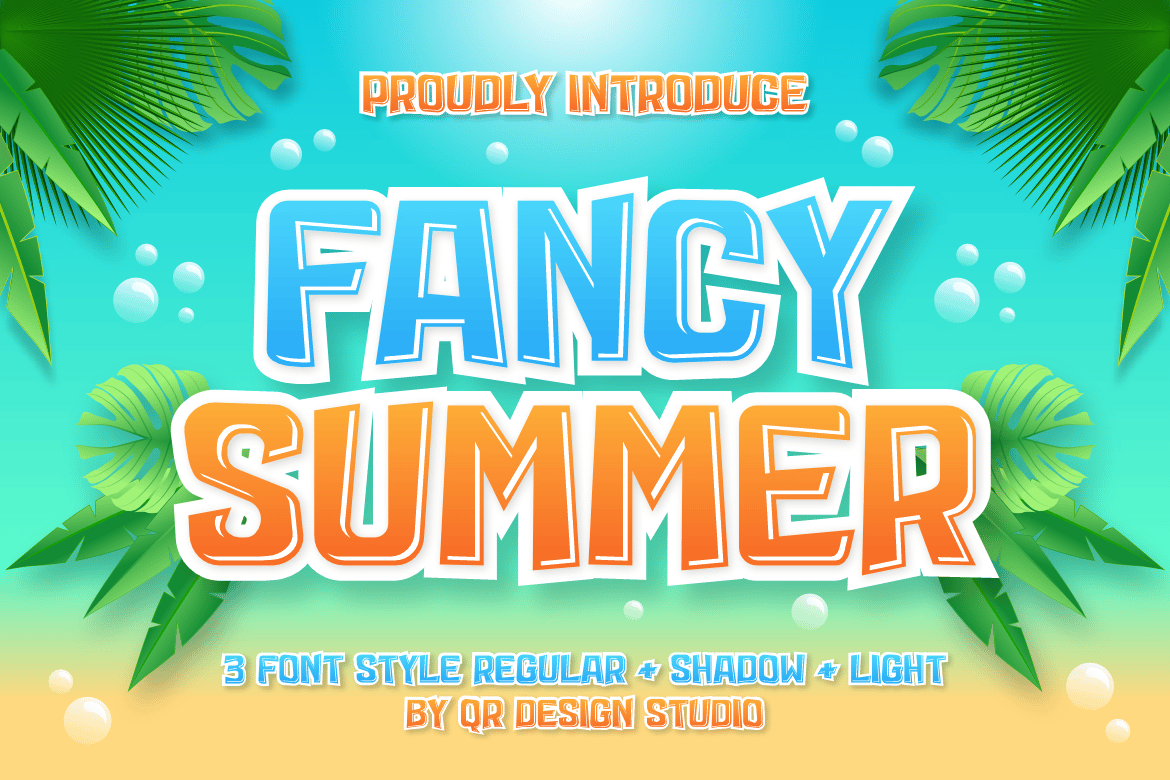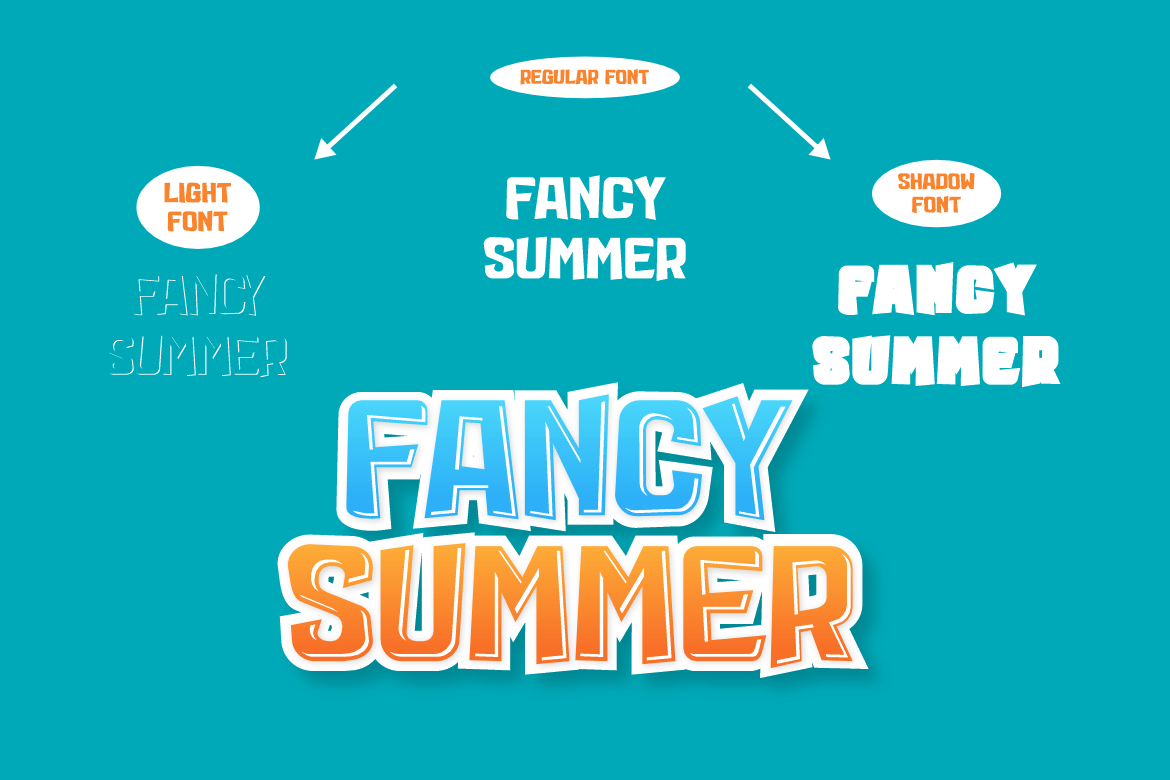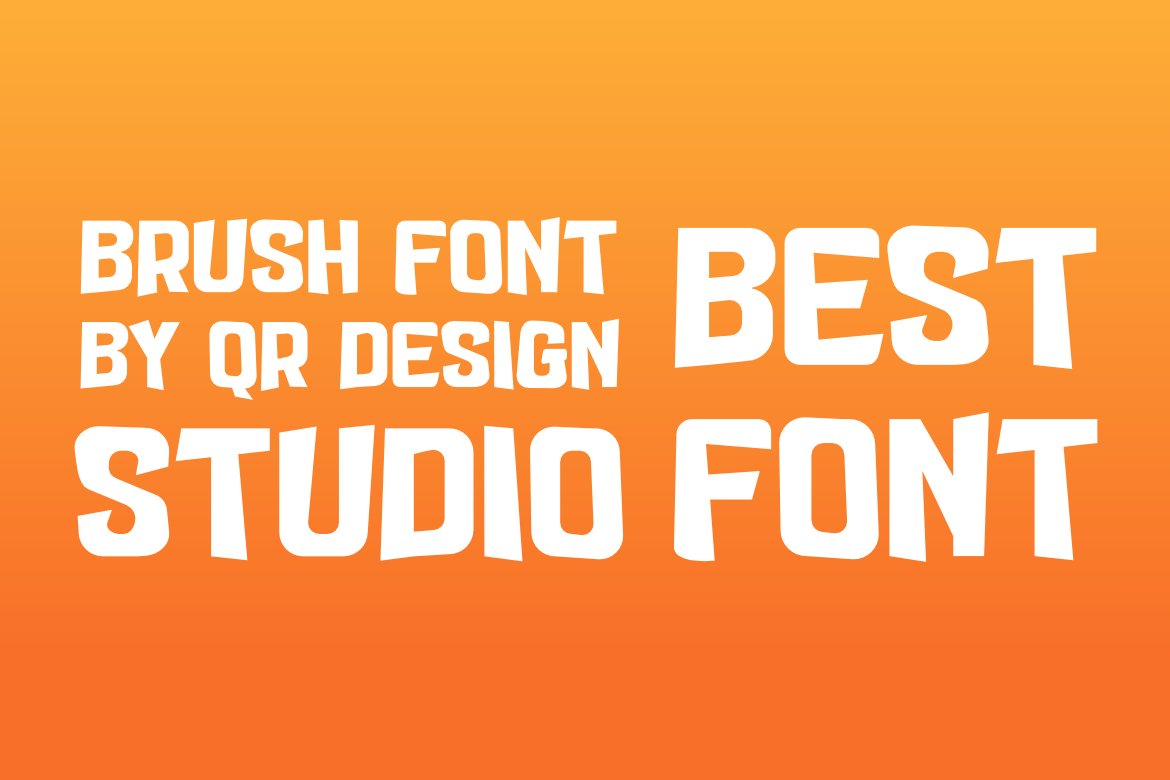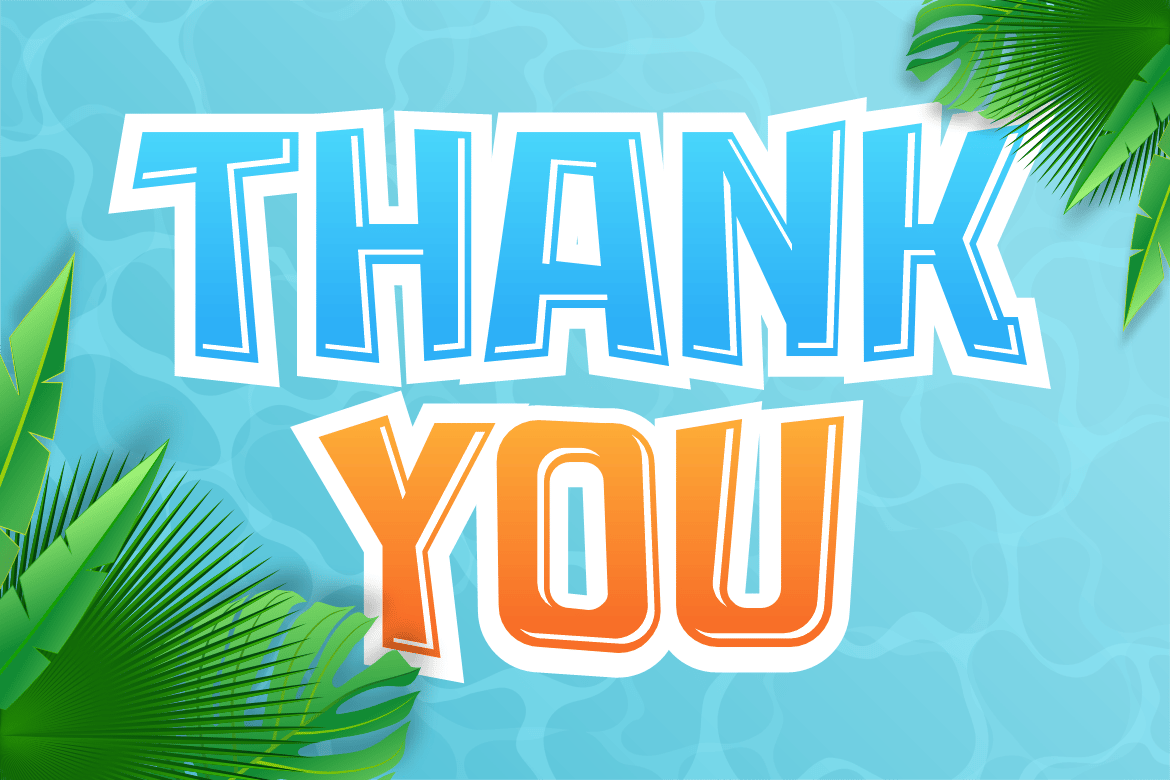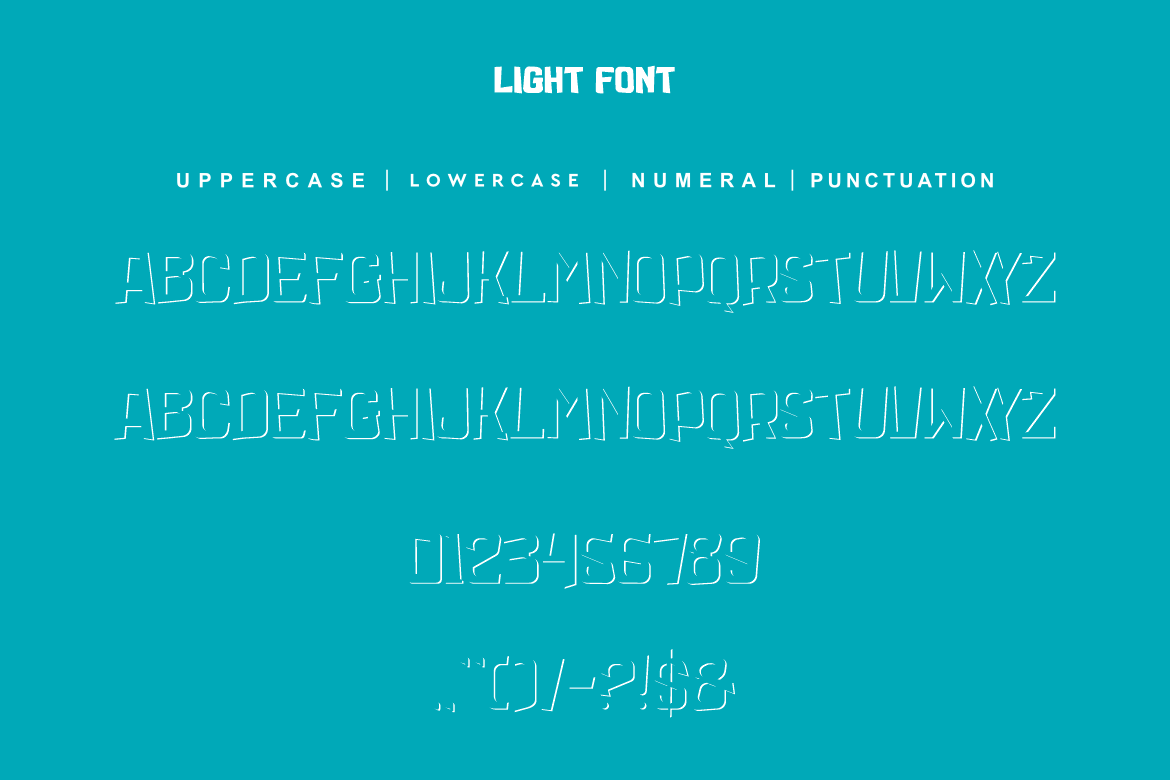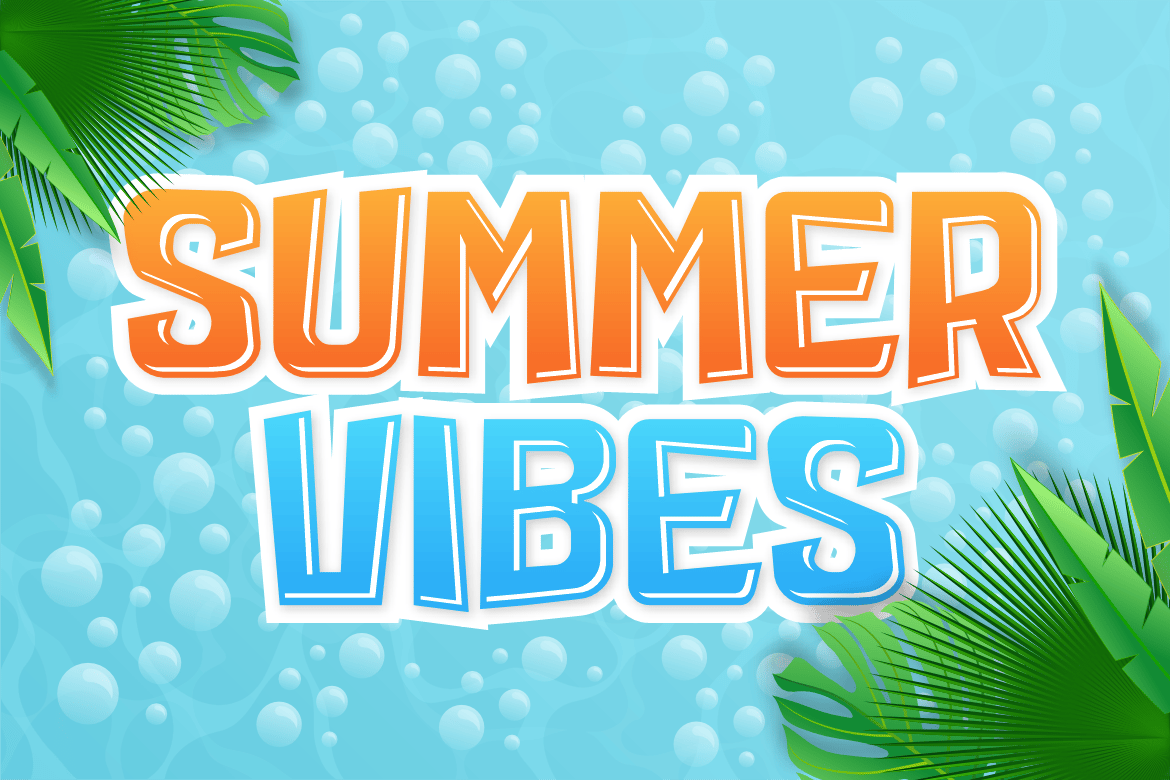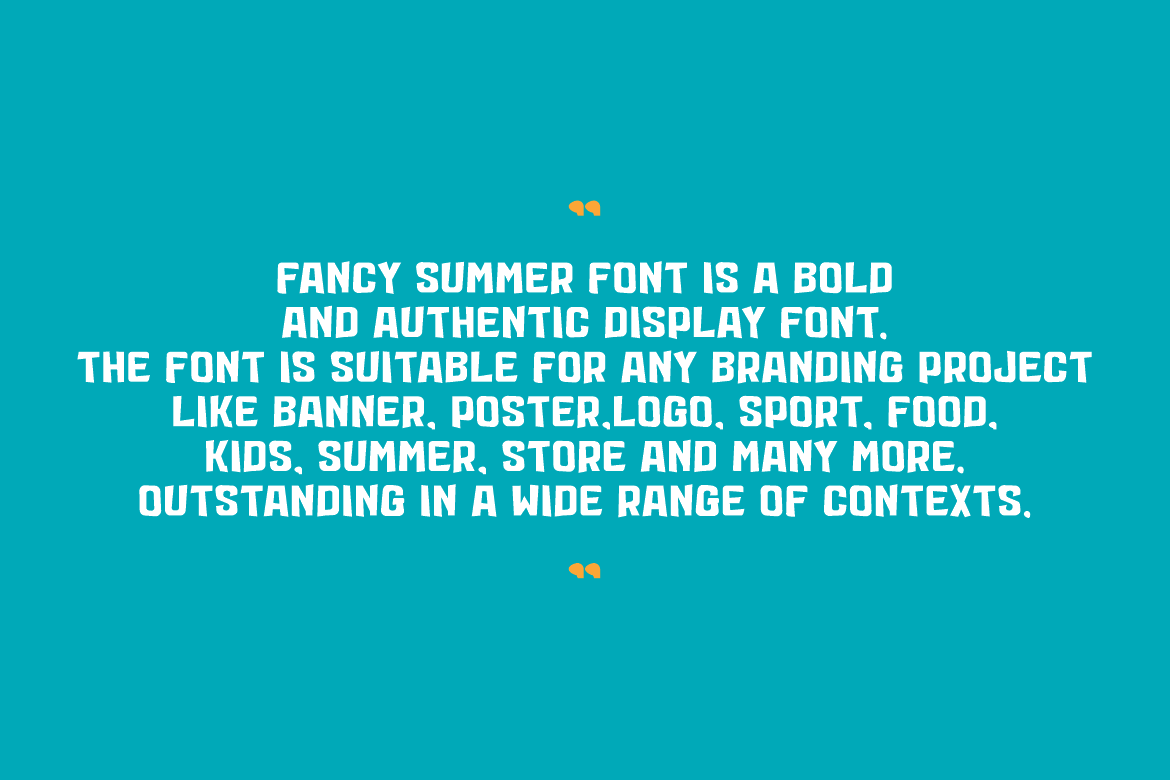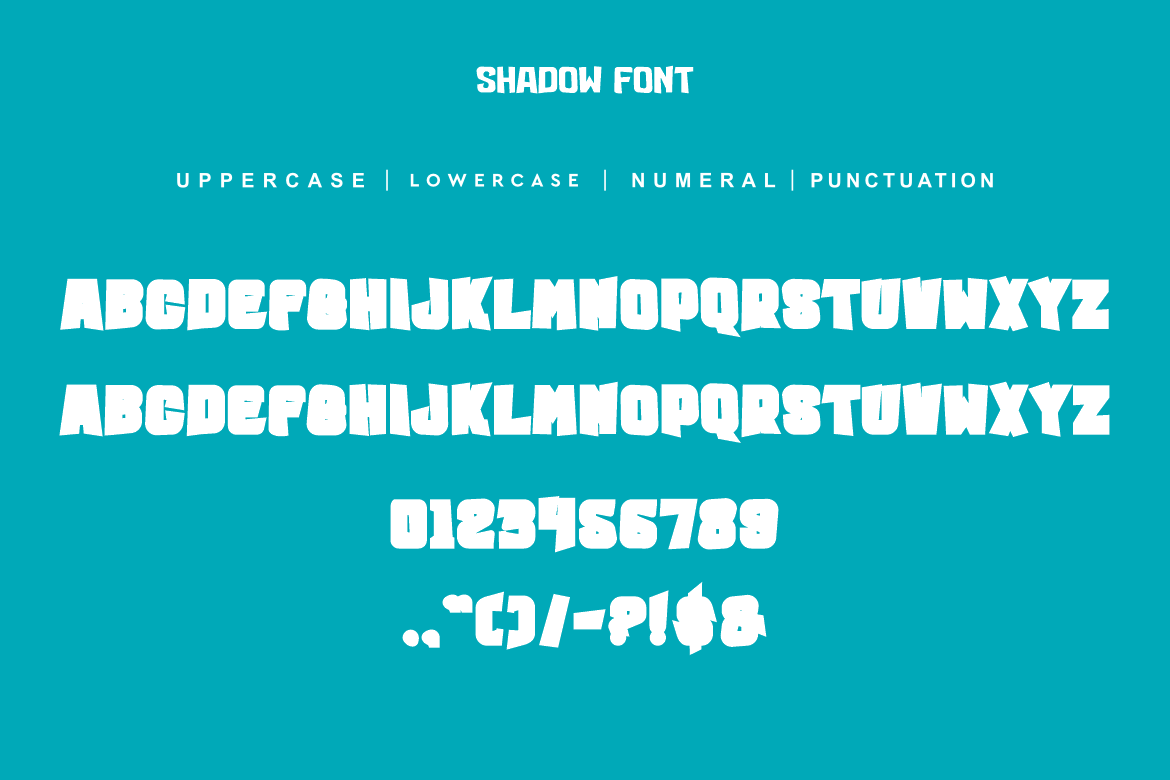
Fancy Summer Font
Fancy Summer Font is a bold and authentic display font.
The font is suitable for any branding project like logo, summer, food, poster, kids, and many more.
Outstanding in a wide range of contexts.